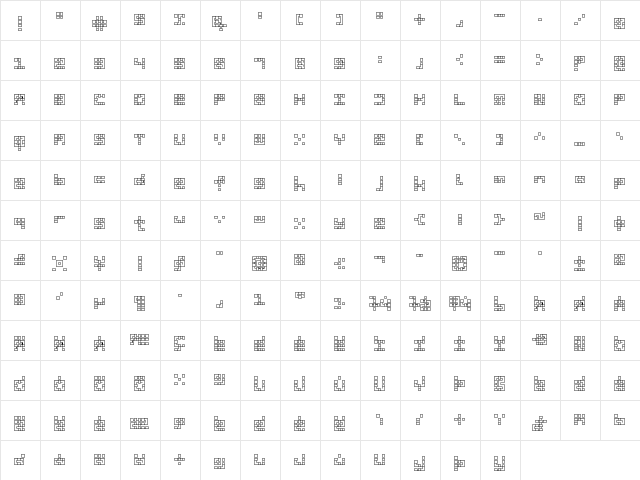
PipeSquare Rounded Regular
Design Context for PipeSquare Rounded Typeface
PipeSquare Rounded softens its letterforms with rounded terminals, giving it an approachable, friendly quality that works well in consumer-facing and digital contexts.
Well-suited to UI design, mobile interfaces, and any brand that wants approachability without sacrificing clarity.
Font Pairing: Pairs well with a rounded or humanist sans for body copy, maintaining the friendly tone without relying on PipeSquare Rounded to carry extended reading.
Pro Tip: Use PipeSquare Rounded for UI elements, app interfaces, and anywhere a friendly, approachable tone needs to be maintained without sacrificing clarity.